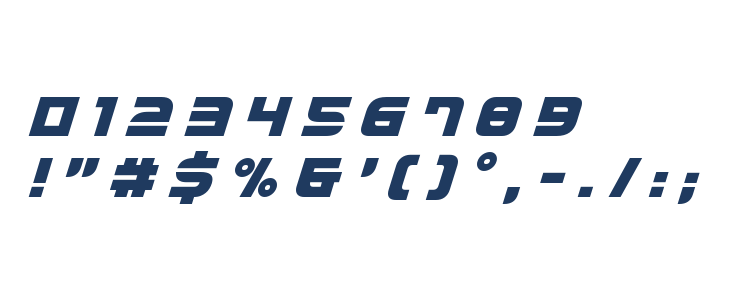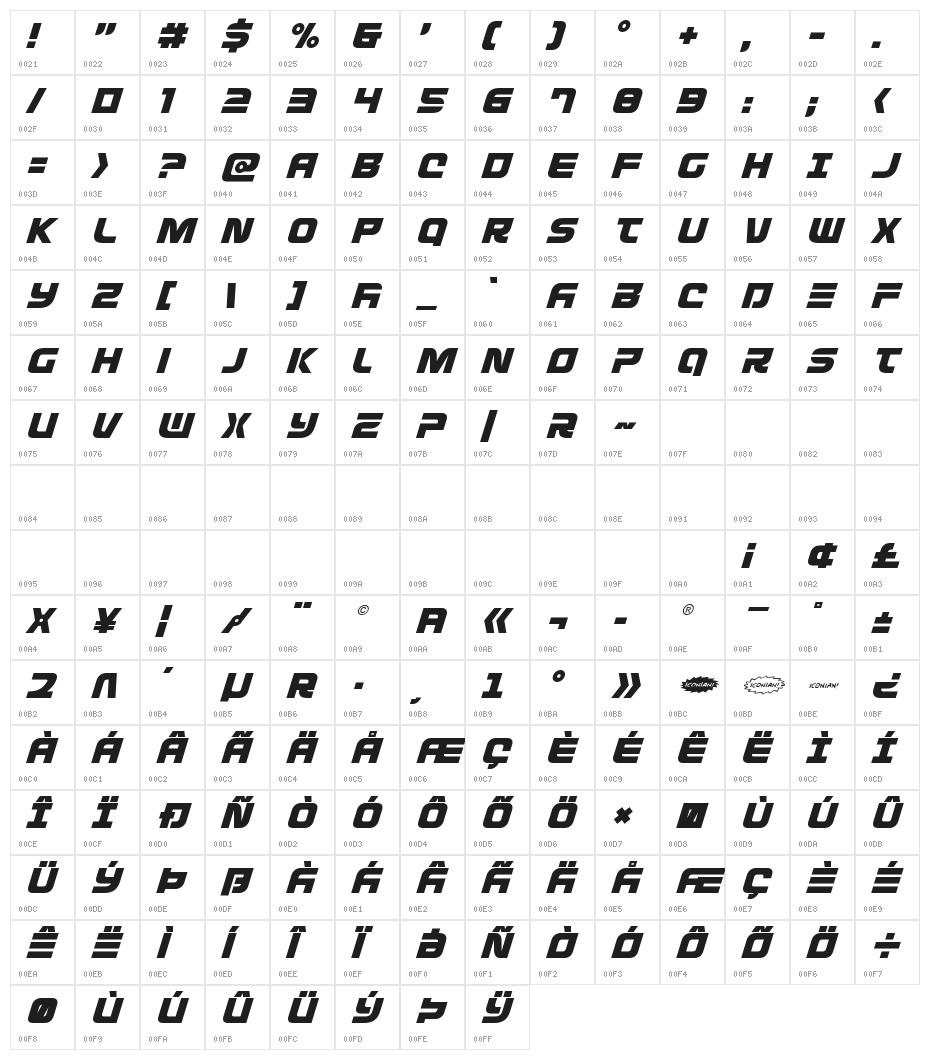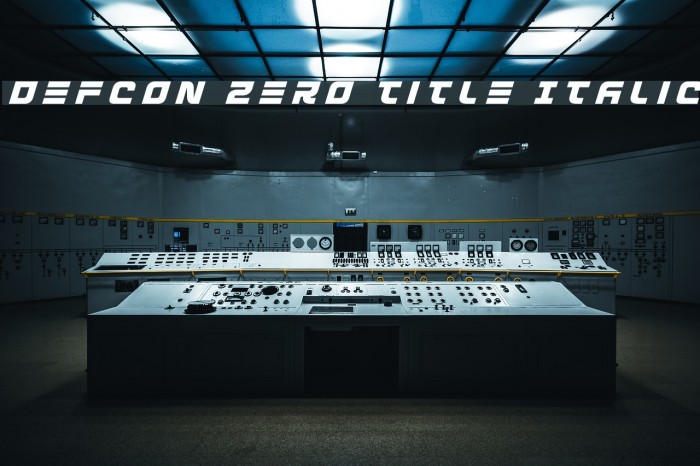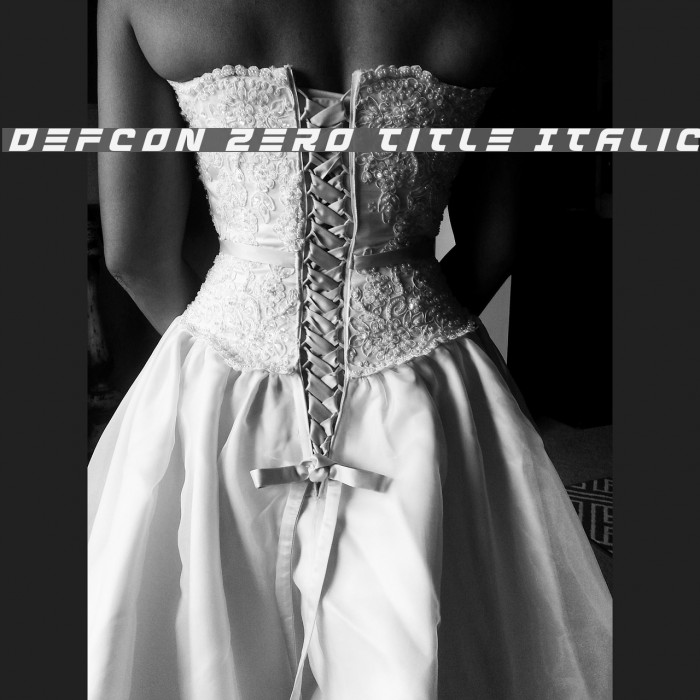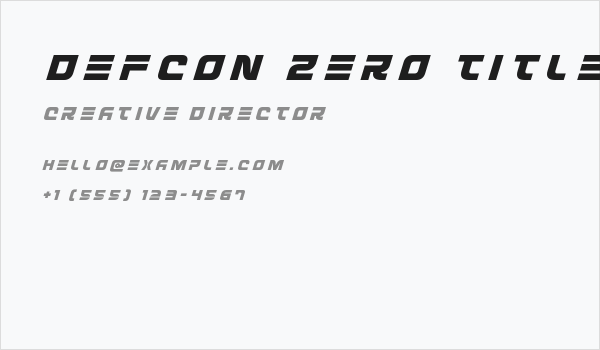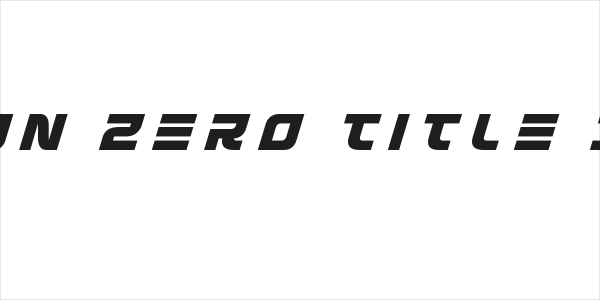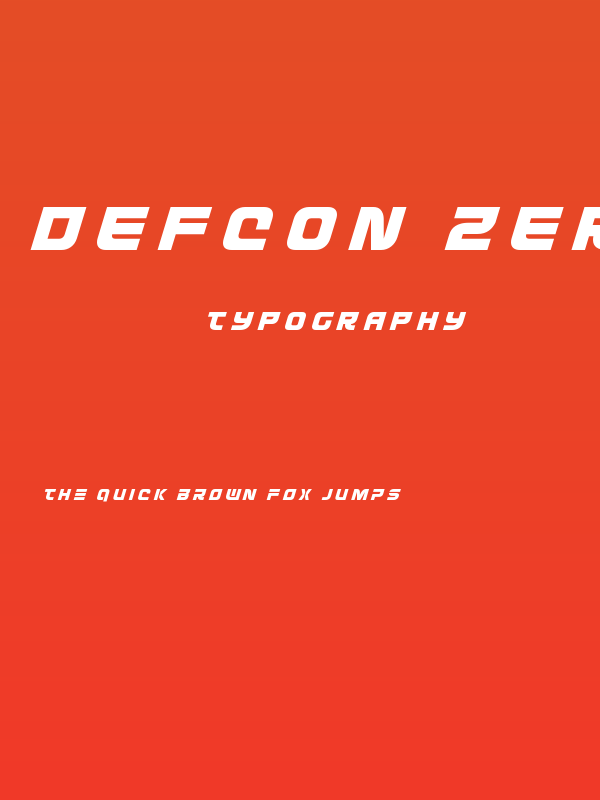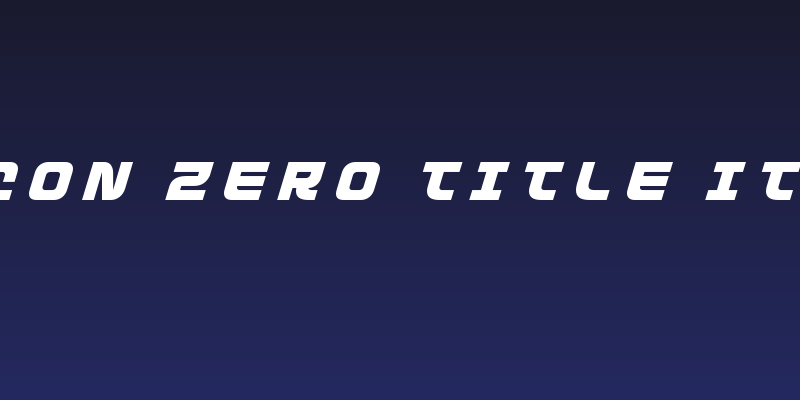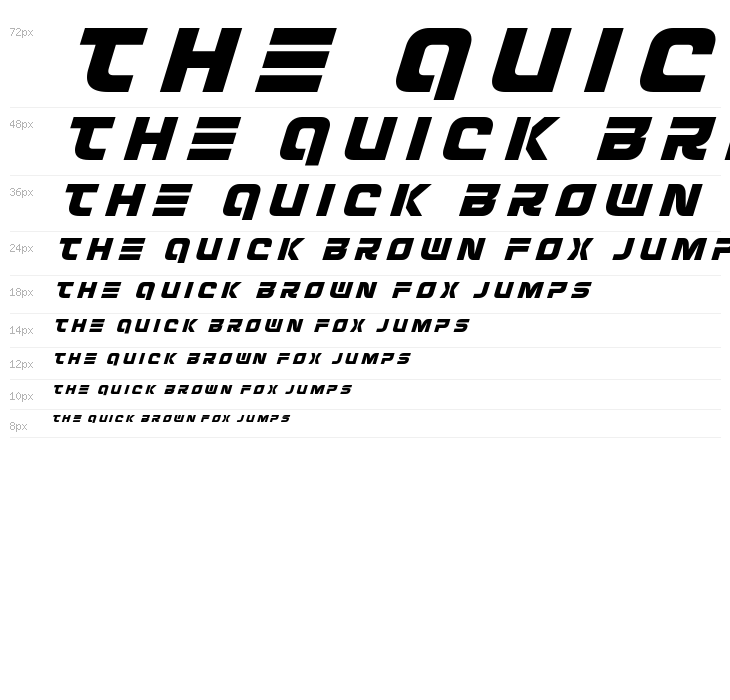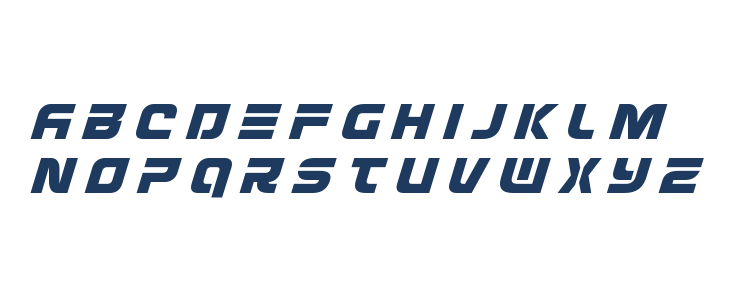
Defcon Zero Title Italic Font
Defcon Zero Title Italic Description
This font exhibits a bold, futuristic style with a strong emphasis on angular and geometric shapes. The italicized slant adds a sense of motion and speed, making it ideal for dynamic and modern designs. The uppercase letters are distinct with sharp edges and a slightly condensed form, while the lowercase letters maintain a consistent style. Numbers and special characters follow the same design principles, ensuring uniformity across all glyphs. The overall appearance is sleek and contemporary, suitable for projects that require a cutting-edge look.